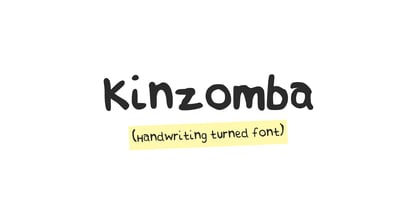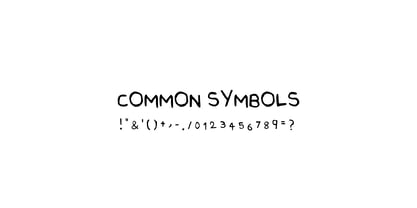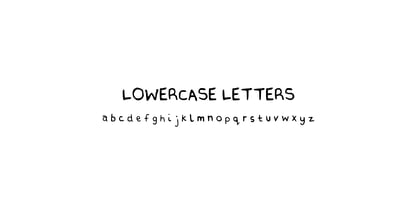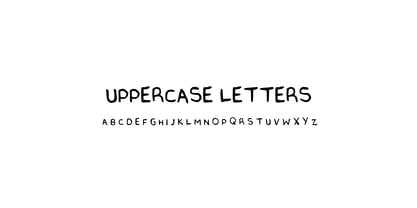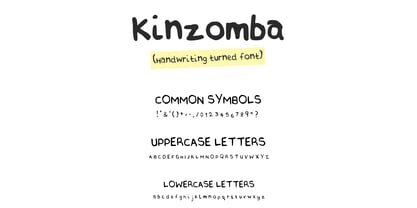
Kinzomba
by One Collective
The Kinzomba Font Family was designed by Arnold Kinzomba and published by One Collective. Kinzomba contains 1 styles. More about this family
Some fonts are designed to be noticed, but this one is crafted to be felt. Born from the simple act of putting pen to paper, this typeface embodies the warmth of a handwritten note—cherished not for its words, but for its personal touch. Each letterform reflects the hand that crafted it, showcasing slight imperfections and a natural rhythm that machines cannot replicate, embracing authenticity over perfection. This font fosters connection, offering a disarming quality that appears as if it was made for you, not just at you. It bridges the gap between screen and reader, brand and person, message and meaning. Words set in this font feel spoken, almost whispered, like a close friend sharing something meaningful over coffee. However, warmth alone isn't sufficient; effective communication is essential. Beneath its tender character, this font is grounded in clarity and restraint. The strokes are simple, and the proportions are well-considered, avoiding unnecessary flourishes that compete for attention. Every curve and line serves a purpose, ensuring that the typeface reads effortlessly, even at small sizes or in long-form text, catering to tired or distracted eyes. Legibility and charm coexist harmoniously. This balance of sincerity and simplicity makes the font versatile, fitting seamlessly in heartfelt greeting cards, small business branding, intimate wedding invitations, or journal apps aiming for a diary-like feel. It shines wherever the goal is to make someone feel seen, not sold to. Additionally, the design exhibits emotional intelligence. The letters are not rigidly identical; subtle variations mimic the natural inconsistencies of real handwriting, ensuring words never feel stamped or robotic. Yet, the underlying structure remains disciplined, creating an intentional composition that avoids sloppiness. It confidently navigates the line between "human" and "chaotic." Ultimately, this typeface transcends mere word display, embodying a small act of empathy in every glyph, conveying that someone cared enough to make it feel personal. In doing so, it invites the reader to engage—to slow down, notice, and connect. Simple in form, rich in feeling, and clear in voice, this font communicates warmth alongside its message.
Designers: Arnold Kinzomba
Foundry: One Collective